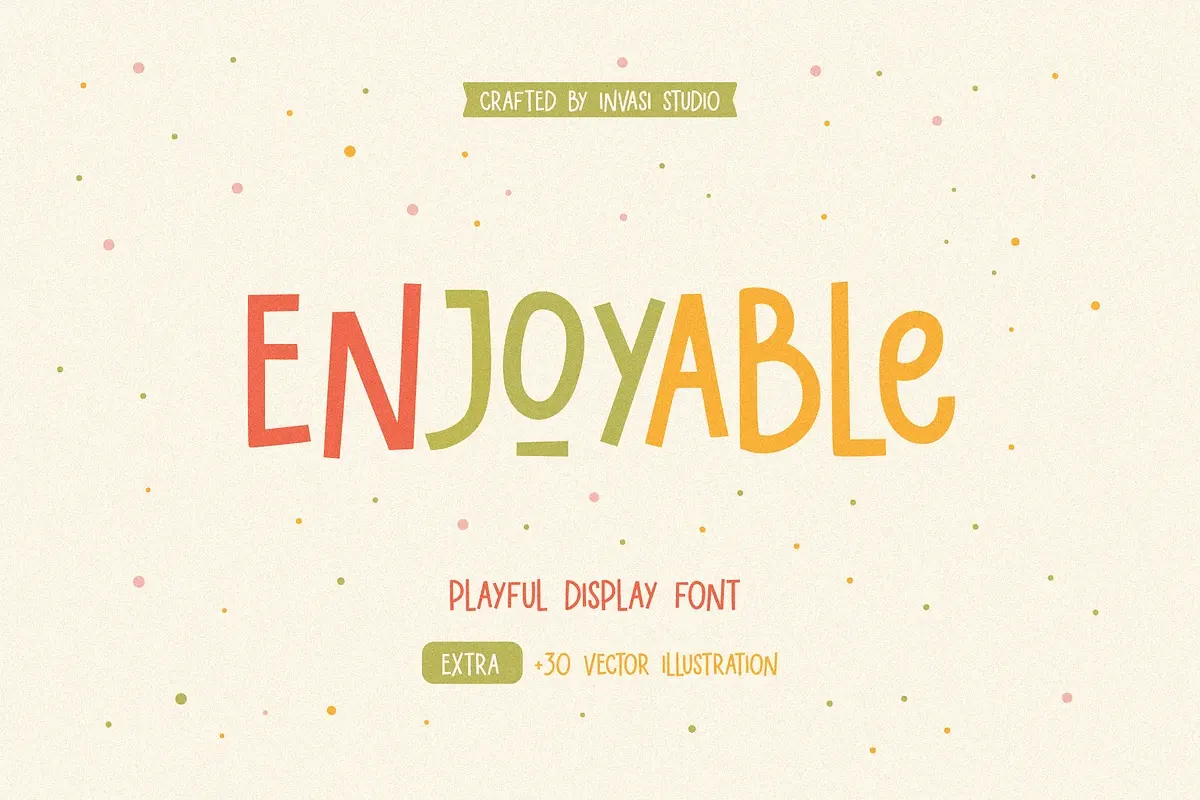
Enjoyable | Playful Font Free Download
Enjoyable | Playful Font Free Download is a fun and friendly typeface designed to bring joy and creativity to your projects. With its quirky curves and cheerful letterforms, this font is ideal for children's books, birthday invitations, toy packaging, social media graphics, and anything that needs a burst of playful energy. It’s designed to feel lighthearted and approachable, while still being clear and easy to read.
Perfect for designers looking to add personality and warmth, Enjoyable brings a handcrafted vibe that makes every project feel custom and unique. Its energetic style adds life to both text and branding elements, making it a versatile addition to your font library.